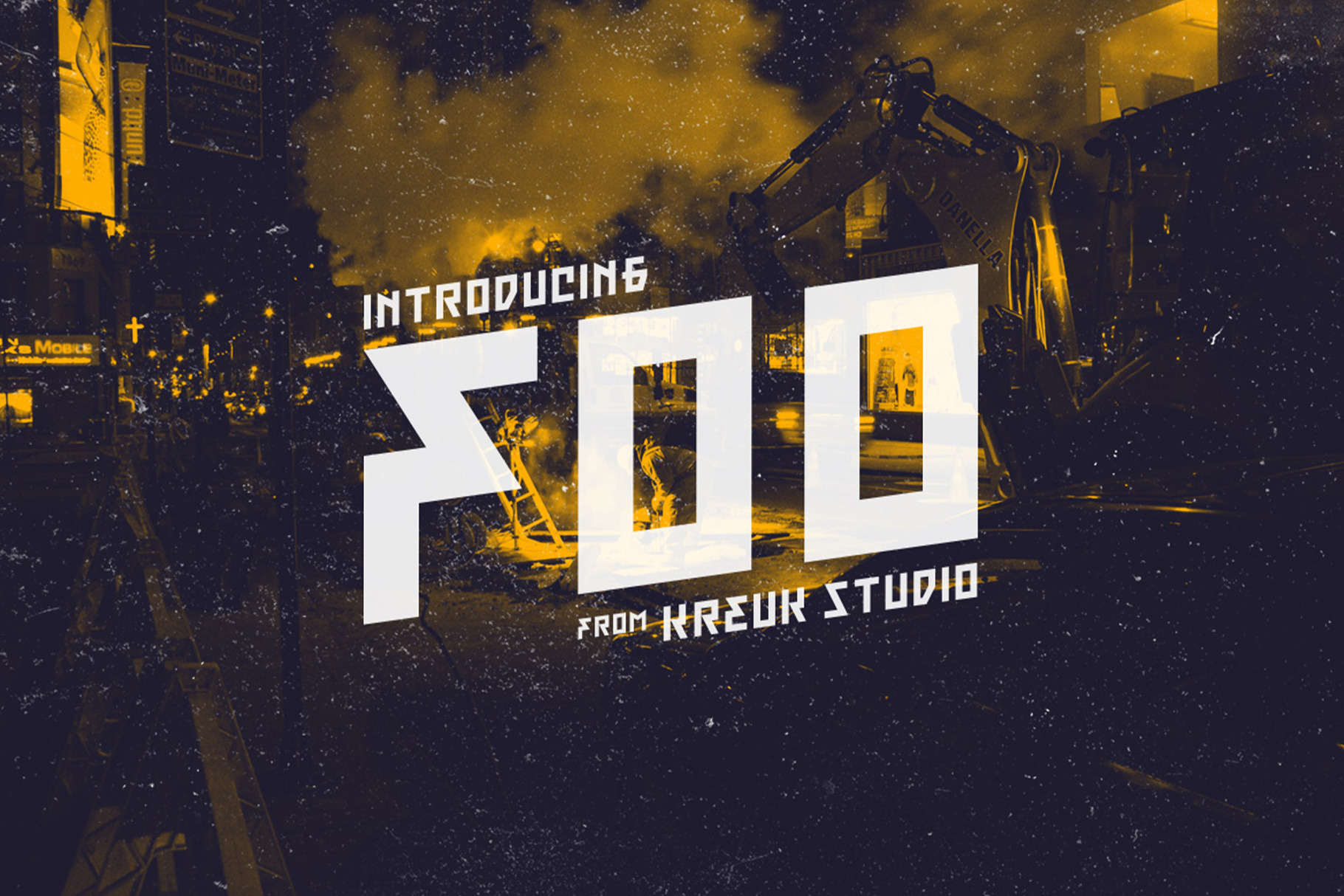
Foo Display Font
KS Foo is Display typeface with countless possibilities. Sub-culture inspired display with sharp & striking form display. From Gigs posters to skateboard to clothing industries. Ideally suited for headline, logo, branding, posters etc.